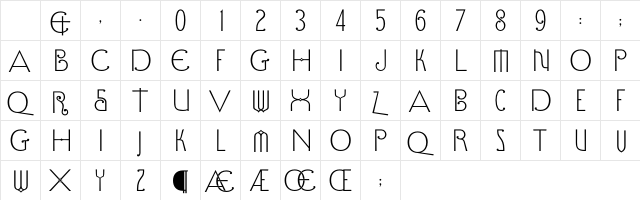
Complete VereDignum LT Std Decorative Regular glyph index. Displaying only characters natively supported by VereDignum LT Std Decorative Regular font.
VereDignum LT Std Decorative is built around its visual character rather than neutral utility - its distinctive forms are designed to make an impression at display sizes. Its slender proportions lend an understated elegance to any composition.
Font Pairing: Pair with a clean neutral sans-serif for body copy to let VereDignum LT Std Decorative's character lead without overwhelming the composition.
Pro Tip: Use VereDignum LT Std Decorative exclusively at display sizes - it was designed to be seen, not read at length. Let a neutral companion handle body copy.